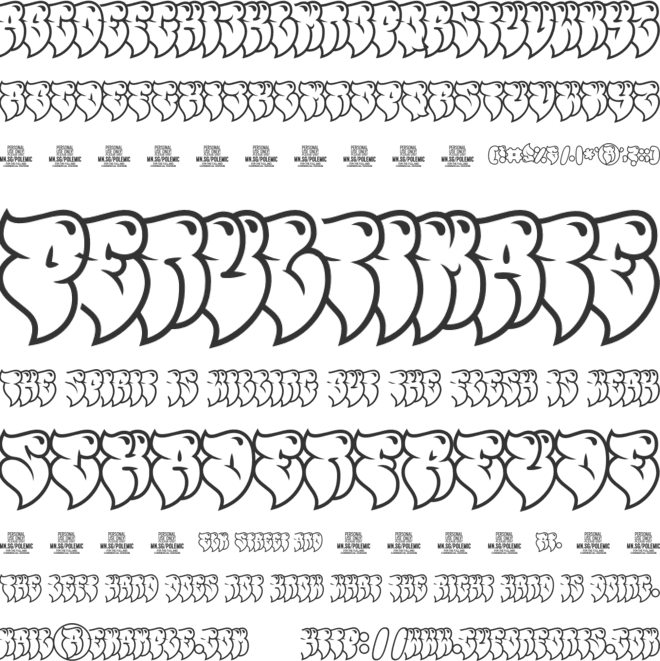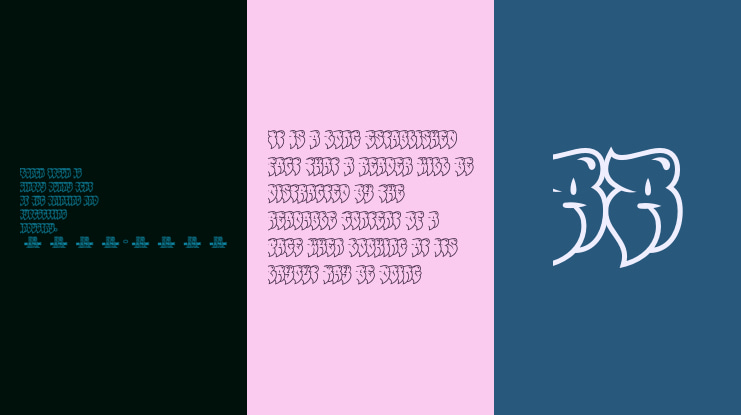
Polemic Shine PERSONAL USE Font Family
Mans Greback
NOTE: This font is for PERSONAL USE ONLY!To purchase a commercial license, visit:https://www.mansgreback.com/product/polemicPolemic is a graffiti-inspired font built for expressive lettering with depth and attitude.Its shapes are inflated and fluid, borrowing from throw-up tags and street pieces, with a rhythm that feels fast, confident and hand-driven. Activate *Contexual Alternates* in your software (Adobe, Office, etc.) to get a perfect overlapping effect! For questions, please visit https://mansgreback.com/faq